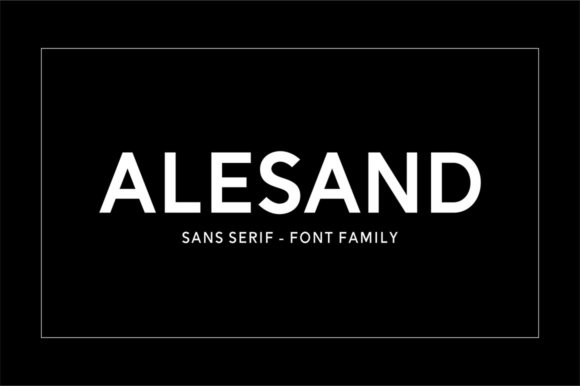
The Perfect Harmony of Design: Introducing Alesand Font
Have you ever stared at a blank canvas, wondering how to bring your creative vision to life? The blank page can be intimidating, but with the right tools, it can also be the spark that ignites your imagination. For designers, the search for the perfect font is often a crucial part of the process. This is where Alesand Font comes in – a stunning, contemporary sans serif font designed to provide balance and versatility to any project.
Alesand Font is more than just a font; it’s a collection of styles that can be layered or used separately to create cohesive and stunning results. With its endless possibilities, Alesand Font is a valuable asset for designers looking to elevate their work and take it to the next level.
Alesand Font Key Features
- Font Family: Alesand is a modern sans-serif font family designed for digital use. It includes 6 weights (Thin, Light, Regular, Medium, Bold, Black) and italics for each weight.
- Character Set: The font family includes a wide range of characters, including Latin, Cyrillic, and Greek alphabets, as well as punctuation and symbols.
- Unique Characteristics: Alesand Font features a clean and minimalist design, with a focus on legibility and readability. Its modern sans-serif style makes it suitable for a wide range of applications, from digital interfaces to editorial design.
Alesand Font Review
Alesand Font is a modern sans-serif typeface that caught my attention with its sleek and elegant design. ✨ The font’s clean lines and geometric shapes make it perfect for digital interfaces, where legibility and readability are crucial.
Here are some of the things that work well in Alesand Font:
- ✨ High x-height, making it suitable for body text
- ✨ Open apertures, creating a friendly and approachable feel
- ✨ Wide range of weights, from light to bold
- ⚠️ Limited support for special characters and language-specific glyphs
- ⚠️ Not ideal for large body text due to its relatively small size
- ⚠️ May not be suitable for complex documents or long-form content
Overall, Alesand Font is a great choice for digital designers looking for a clean and modern sans-serif typeface. While it may not be perfect for all use cases, its strengths make it a valuable addition to any designer’s toolkit.
Tips: Use Alesand Font for headings and titles to add a touch of elegance to your design.
Tips: Use Alesand Font for body text to create a cohesive and professional look.
Tips: Use Alesand Font for titles and headings to add a touch of sophistication to your presentation or document.
Alesand Font is perfect for:
- Editorial and publishing projects
Alternatives to Alesand Font for Designers
Monserrat is a sans-serif font that is perfect for creating a modern and urban look. It is a great choice for headlines and titles due to its bold and geometric structure. Montserrat is a great alternative to Alesand Font as it has a similar sans-serif feel but with a more geometric and modern twist.
Use Montserrat when you need to create a bold and modern look for your design project.
Open Sans is a clean and modern sans-serif font that is perfect for body text and headings. It is highly legible and works well in a variety of contexts, from digital products to print materials. Open Sans is a great alternative to Alesand Font as it has a similar clean and modern feel but with a more neutral and versatile tone.
Use Open Sans when you need a clean and modern font that is easy to read and works well in a variety of contexts.
Lato is a sans-serif font that is perfect for creating a clean and elegant look. It is highly legible and works well in a variety of contexts, from digital products to print materials. Lato is a great alternative to Alesand Font as it has a similar clean and elegant feel but with a more refined and sophisticated tone.